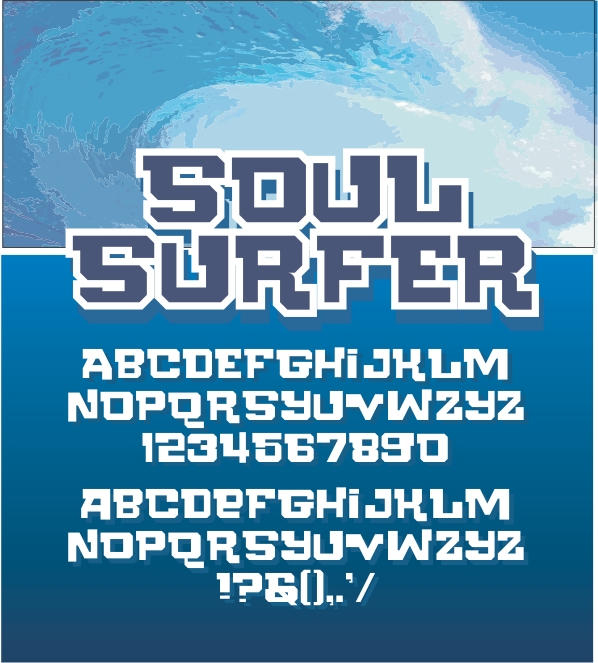
The sample really makes this font shine. Wonderfully quirky letters :)
Somehow resembles the Spongebob font, don't ya think? 10/10
Congratulations! FontStruct Staff have deemed your FontStruction worthy of special mention. “Soul Surfer” is now a Top Pick.
This is the quirkiest, funniest, and most original font I've seen so far on this website. Folks, we have a genius here.
Very well done!
Great work! My fave!